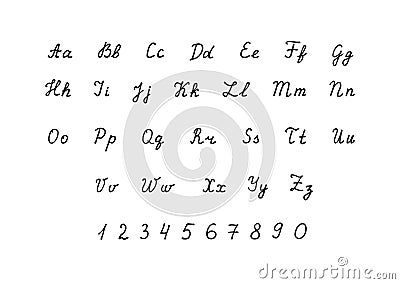
Hand Drawn Vector Alphabet. Calligraphic Script Font. Calligraphy Letters A-Z And Numbers 0-9 Written With Liner. Latin
Hand drawn vector alphabet. Calligraphic script font. Calligraphy letters A-Z and numbers 0-9 written with liner. Latin Vector Illustration
Hand drawn vector alphabet. Calligraphic script font. Calligraphy letters A-Z and numbers 0-9 written with liner. Latin handwriting symbols. Easy to edit design template for your artworks